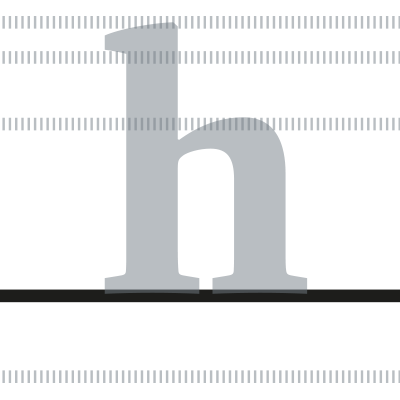
In certain scripts (e.g. Latin, Cyrillic, Greek), the baseline is the line upon which letters (without descenders) sit.
Dutch: basislijn
French: ligne de base
German: Grundlinie
Italian: linea di base
Norwegian: Grunnlinje
Polish: podstawowa linia pisma
Portuguese: linha de base
Russian: линия шрифта
Spanish: línea de base
Turkish: Zemin (Taban Hattı)
Ukrainian: Базова лінія шрифту